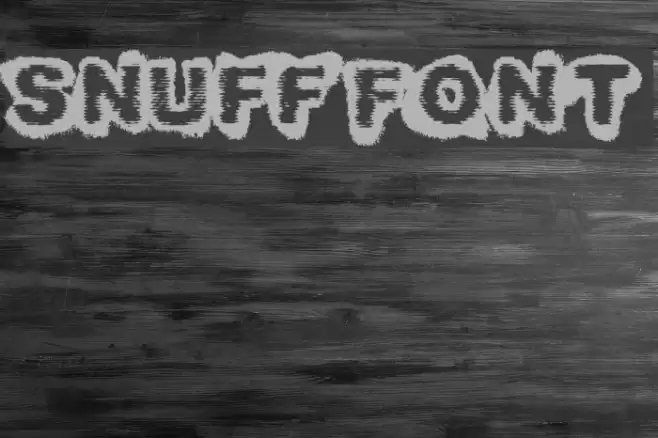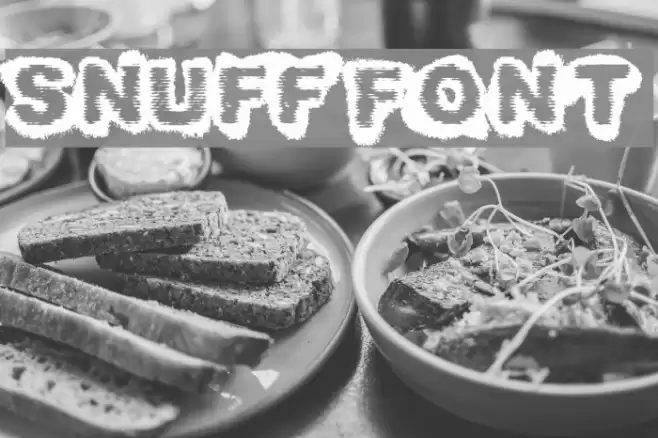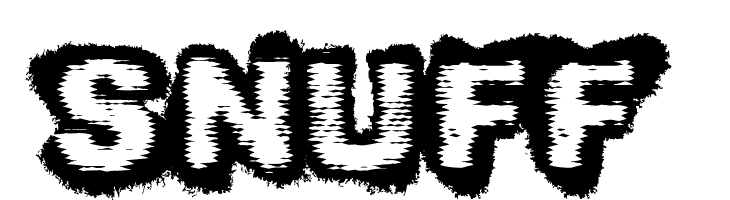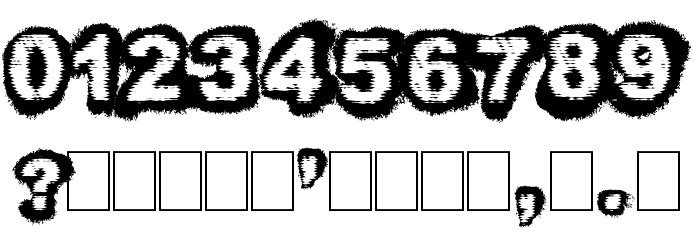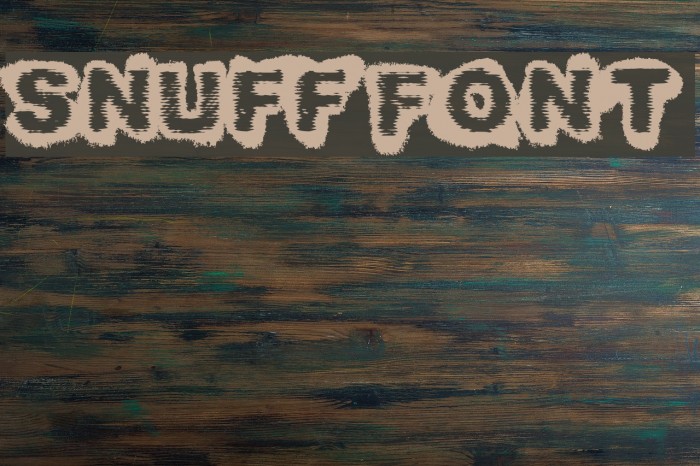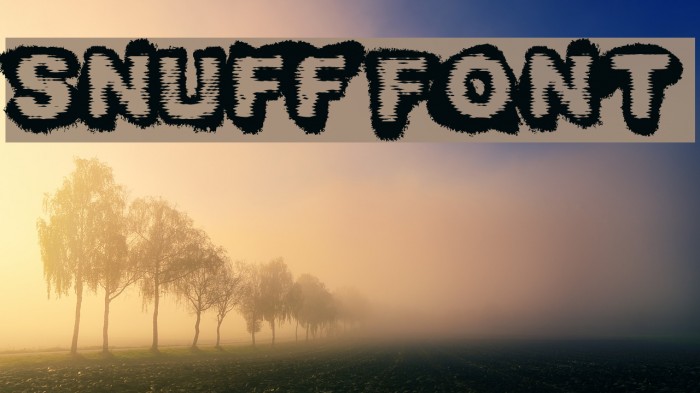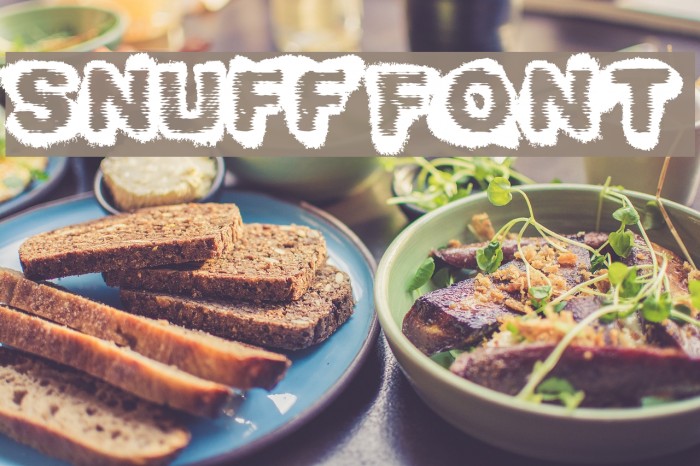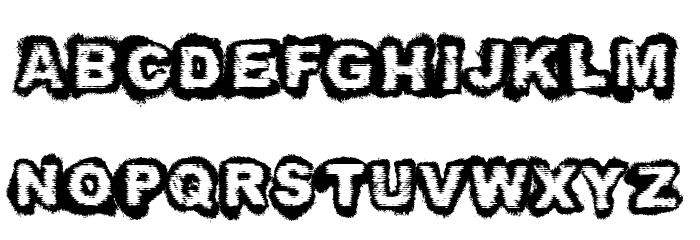
Snuff Font
Snuff Description
This font features a bold, playful style with a fuzzy, textured outline that gives it a unique and eye-catching appearance. The characters are uppercase and have a consistent thickness, with a slight inward curve that adds a sense of movement and dynamism. The numbers and special characters follow the same design, ensuring a cohesive look across all glyphs. The texture resembles a furry or fluffy effect, making it ideal for projects that require a fun and informal touch.
A bold, textured font with a playful, fuzzy outline from Uncategorized fonts.
- Proposed Projects: Ideal for children's book covers, playful posters, party invitations, and any design needing a whimsical touch.
- Overall Style: Playful, Whimsical